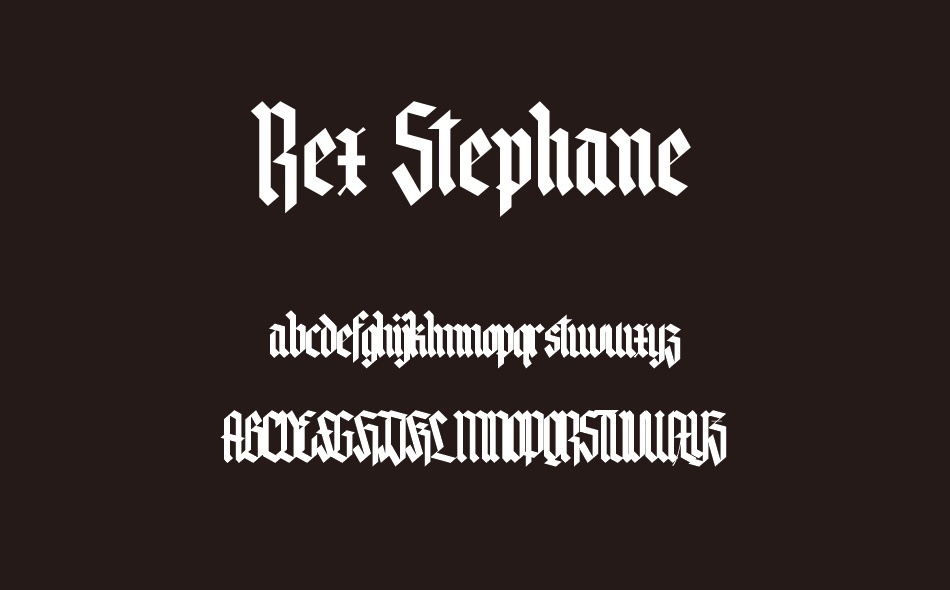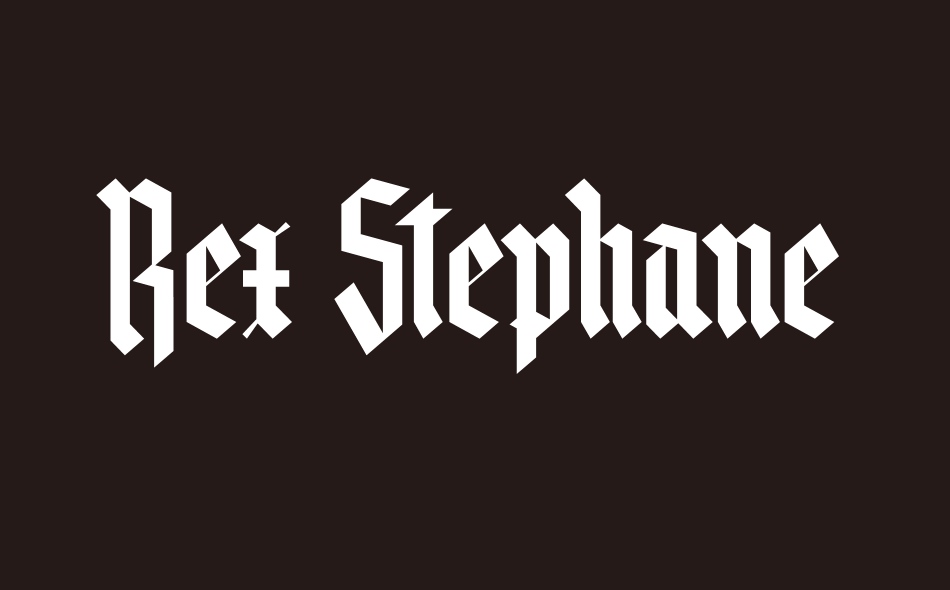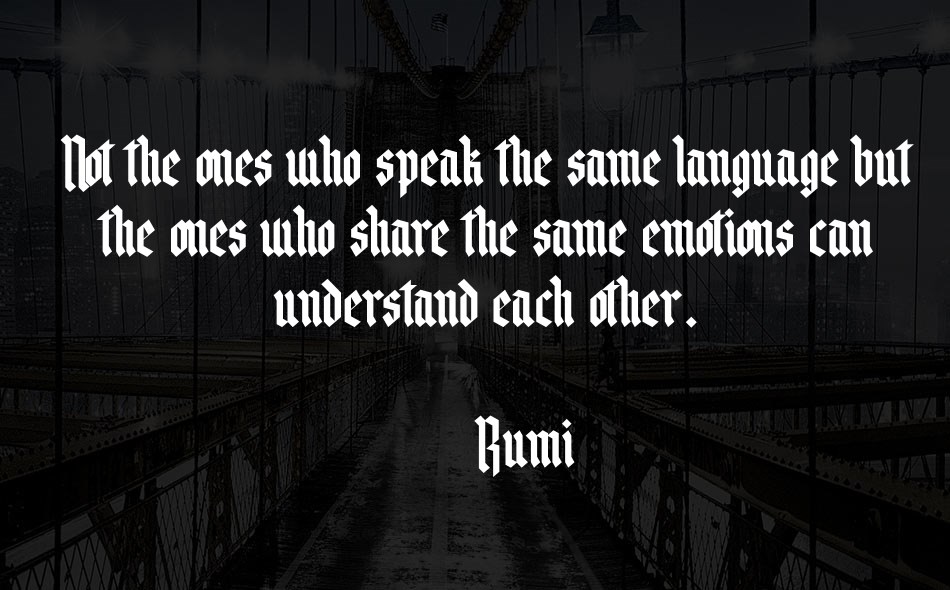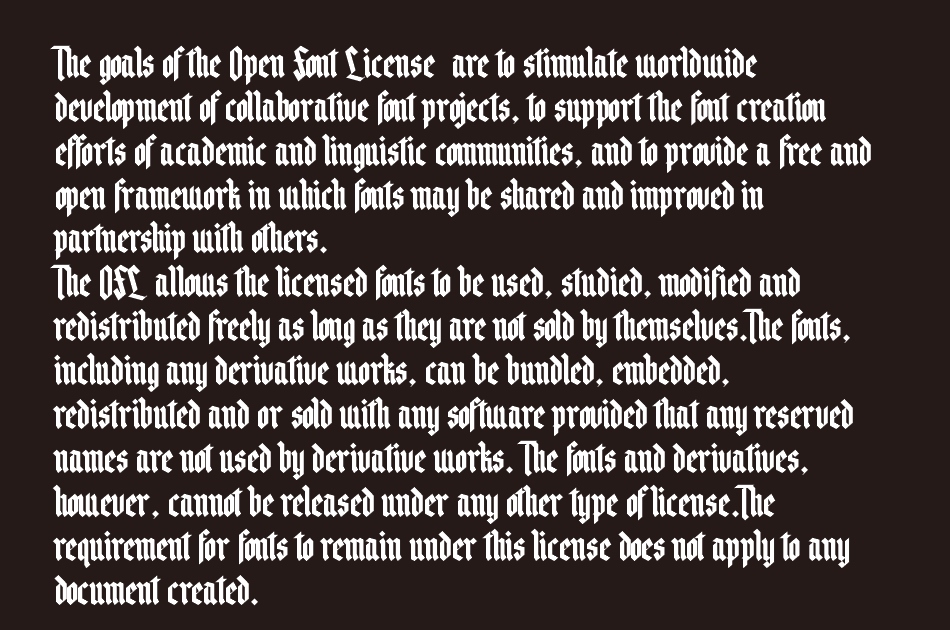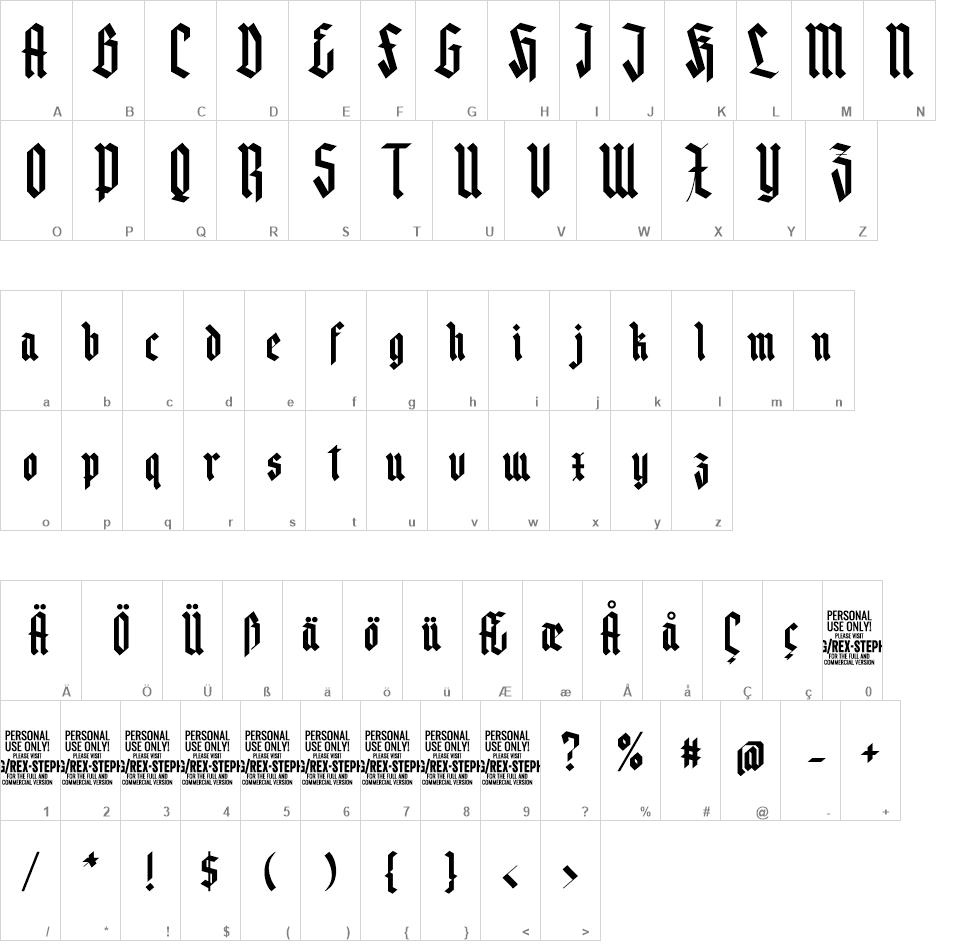
Rex Stephane font
Rex Stephane is a striking blackletter font that artfully blends medieval influences with modern geometric shapes.
Rex Stephane, designed by Mans Greback, is a striking blackletter font that artfully blends medieval influences with modern geometric shapes. Inspired by the tall stature of Gothic architecture, merged with sharpened edges, this font captures the essence of strict ruling while having an elegance of the Middle Ages.
First imagined while exploring an abandoned castle, the typeface is based on ancient manuscripts adorned with calligraphic lettering. These texts became the foundation for Rex Stephane, as Mans Greback aimed to recreate the rich history and grandeur of the medieval era while adding his own contemporary twist.
The font is built with advanced OpenType functionality and has a guaranteed top-notch quality, containing stylistic and contextual alternates, ligatures, and more features; all to give you full control and customizability. It has extensive lingual support, covering all Latin-based languages, from Northern Europe to South Africa, from America to South-East Asia. It contains all characters and symbols you'll ever need, including all punctuation and numbers.